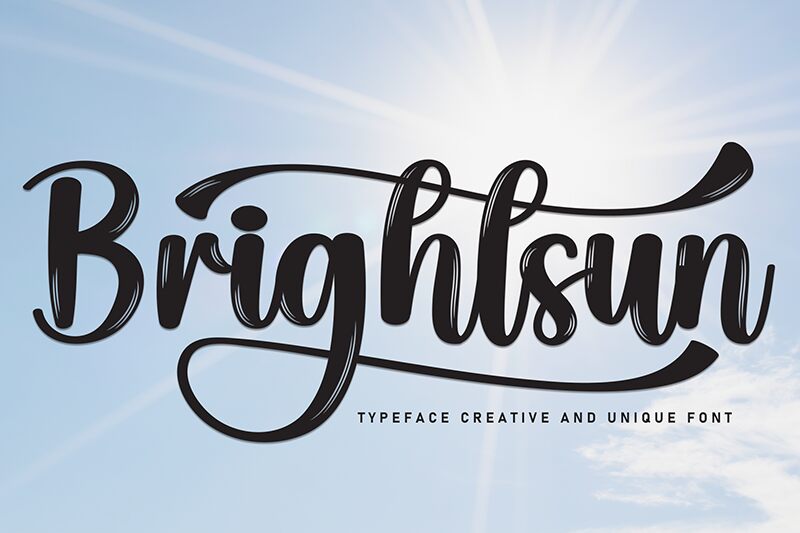
Brightsun
Brightsun font, crafted by Scratchones, is an elegant brush typeface that brings expressive and fluid touch to any design. This free modern script font carries decorative and artistic flair which is present within every letter. Its style perfectly combines the beauty of a calligraphic approach with a contemporary twist.
Use it in luxury branding projects, on invitations for weddings, social media posts or posters. Other ideas include restaurant menus, large-size print publications, magazine/website headers and cover artwork for books. Let’s not forget product packaging designs like those for soap, perfume bottles or chocolate which are great too!